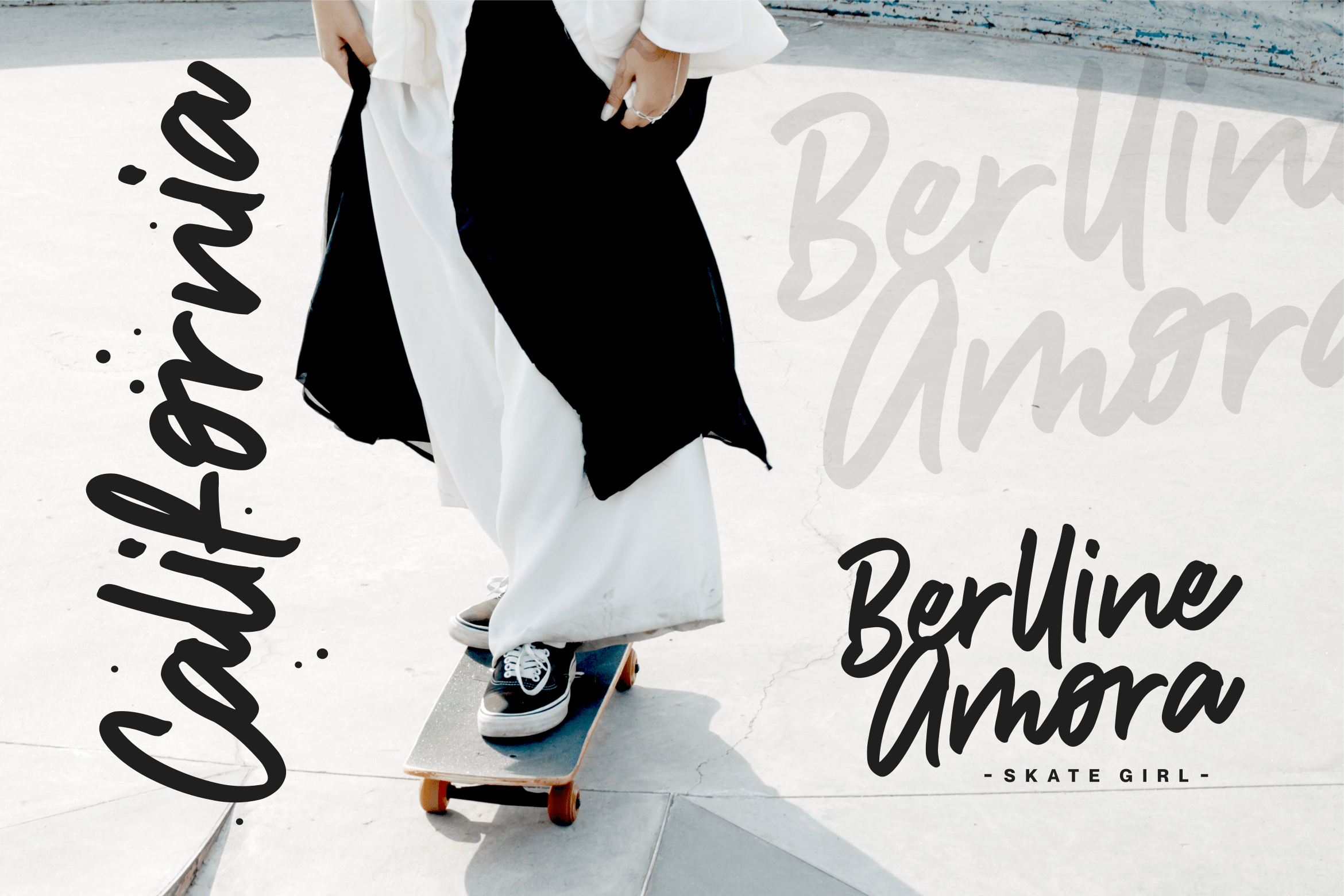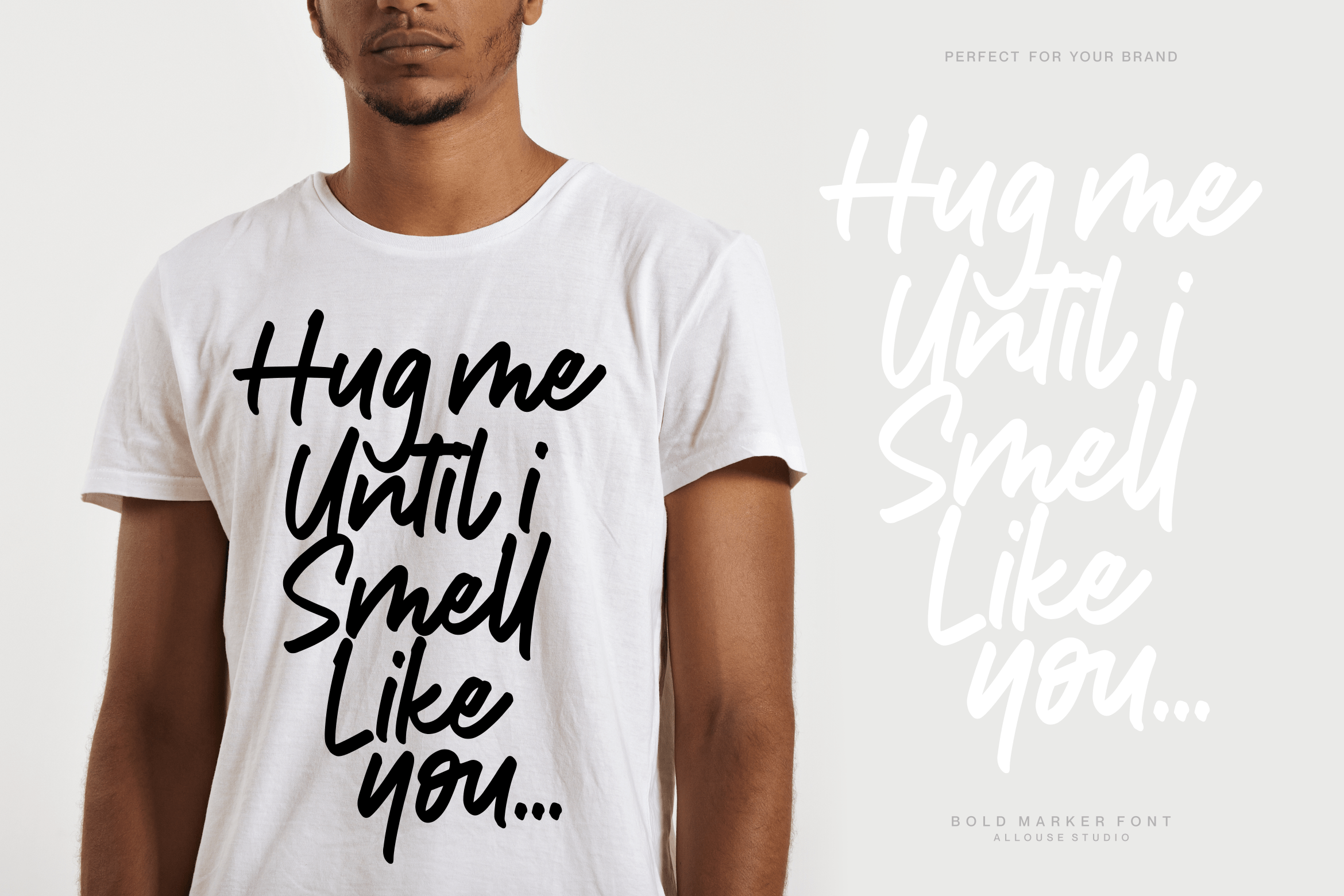
Callmounth Font
Callmounth Script Font
This font feels equally charming and elegant. It looks stunning on wedding invitations, thank you cards, quotes, greeting cards, logos, business cards and every other design which needs a handwritten touch.